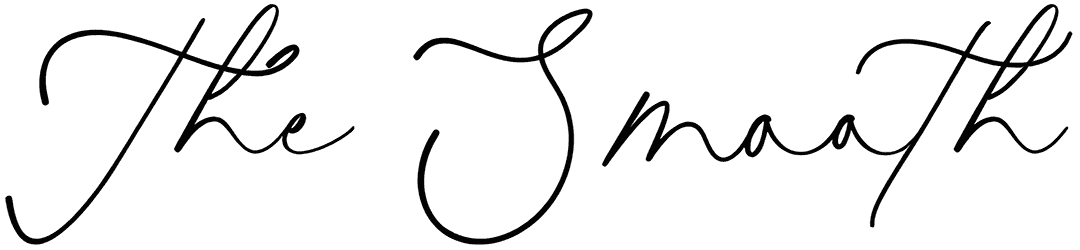
The Smooth Font
The delicate and chic style of a calligraphy font like The Smooth can perk up your intended layout. Lack of numbers and punctuation marks is not an obstacle to enjoying this signature font for many designs, based on your…
The delicate and chic style of a calligraphy font like The Smooth can perk up your intended layout. Lack of numbers and punctuation marks is not an obstacle to enjoying this signature font for many designs, based on your taste. It depends on your creative skills that mix this font with your ideas and shine.